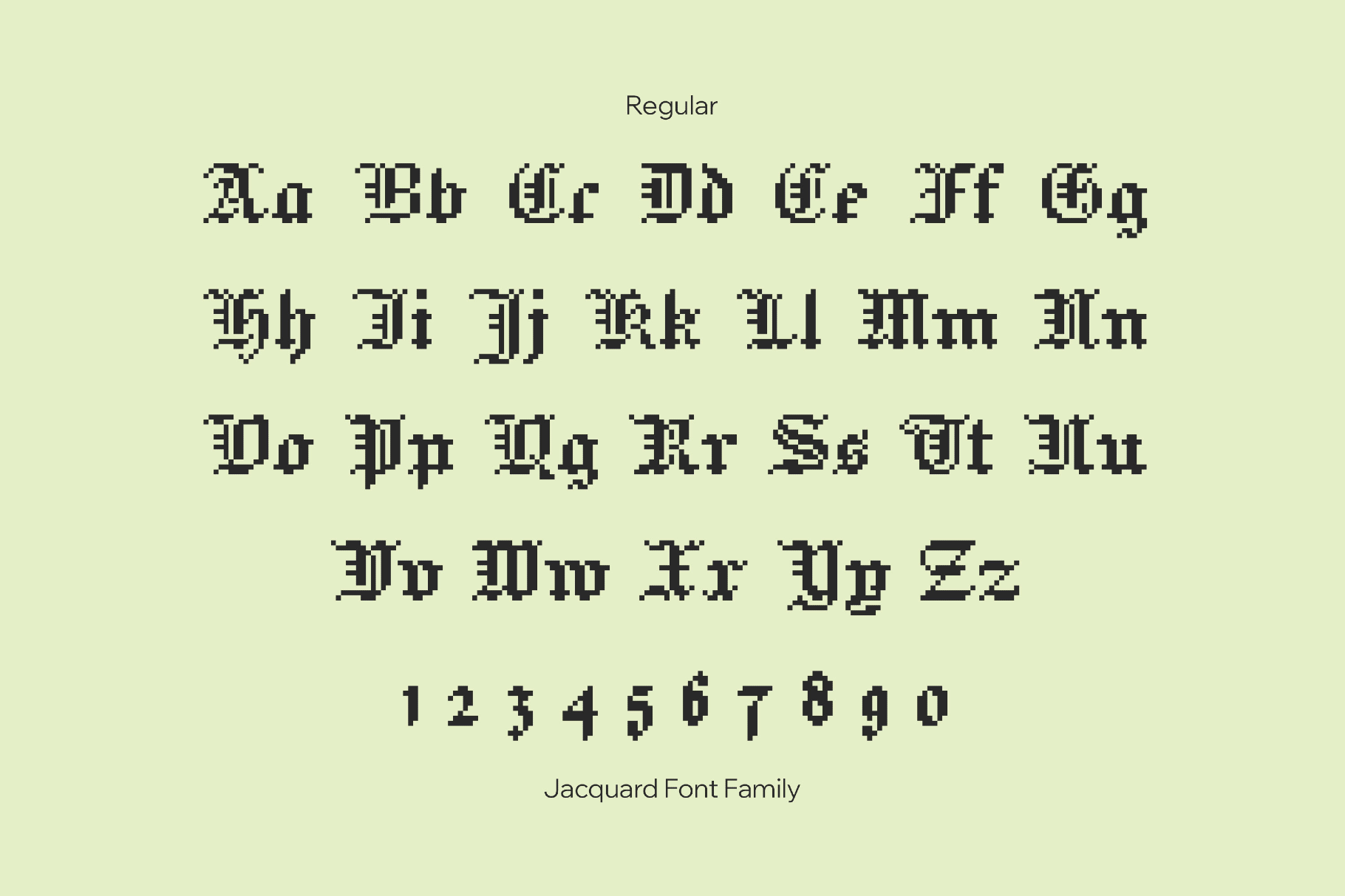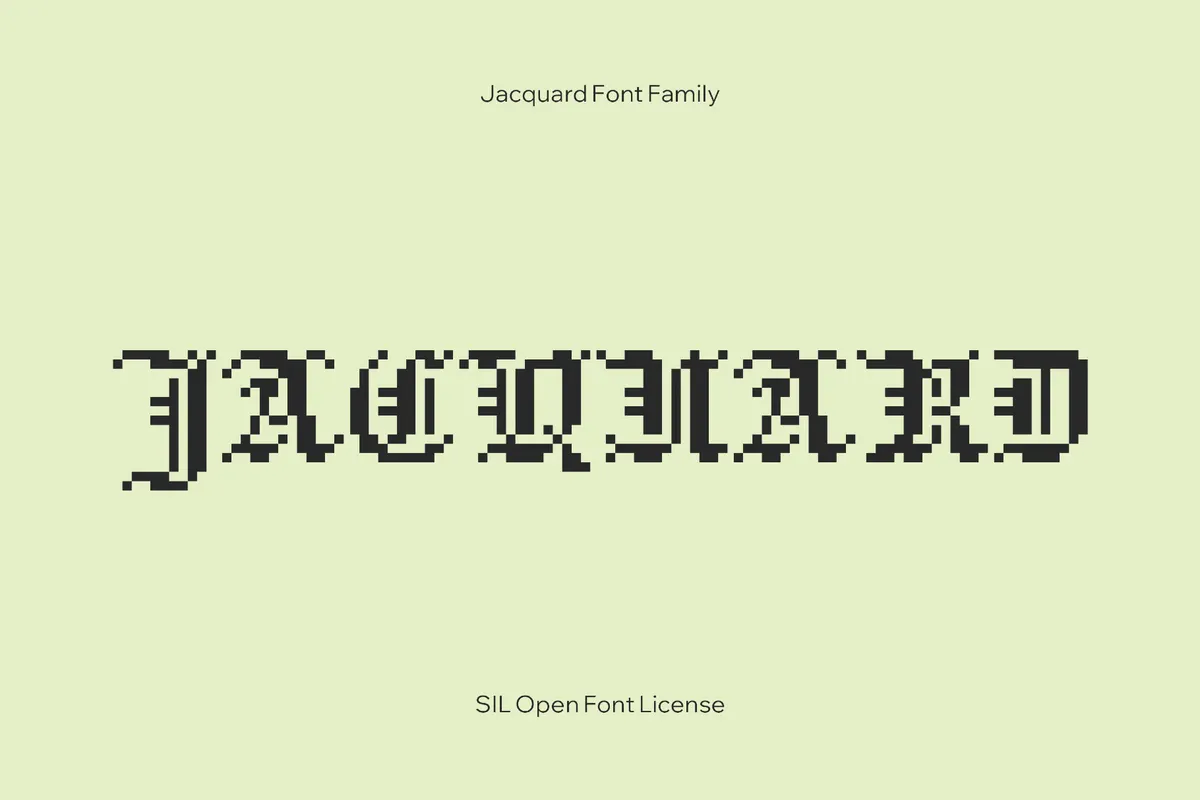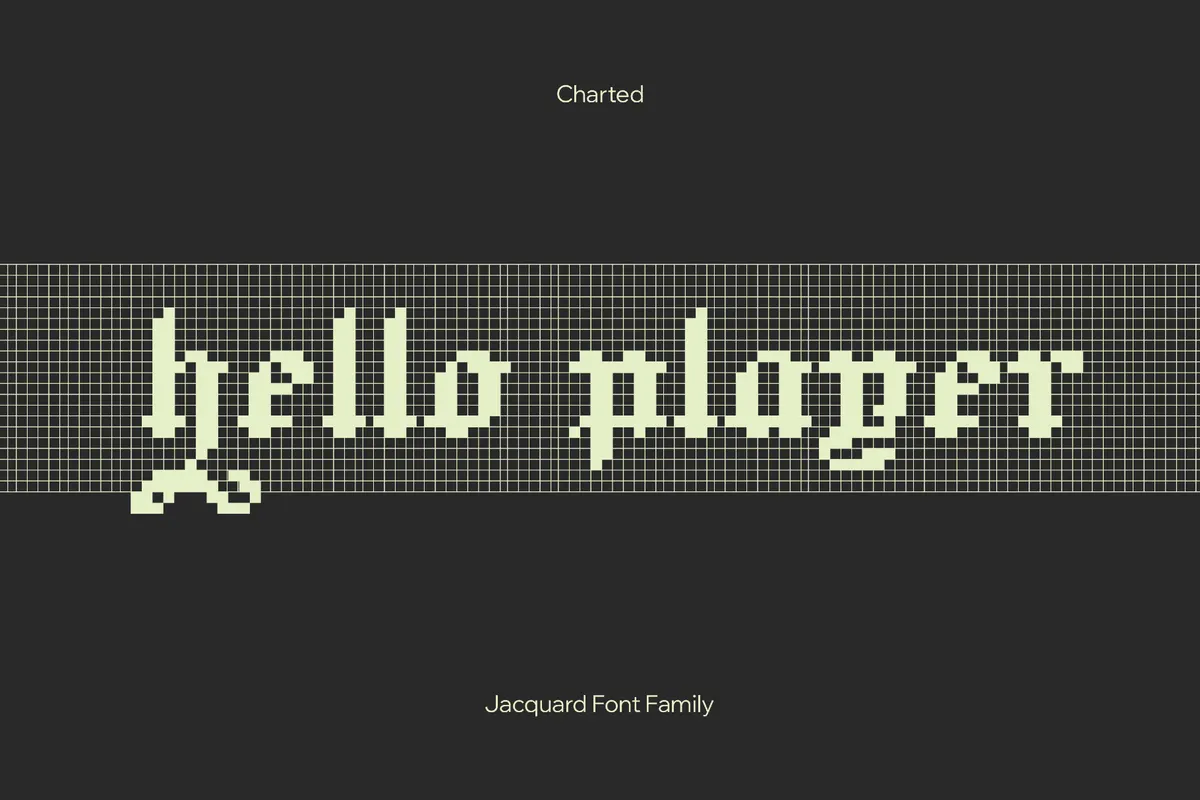
Jacquard Font Family
Jacquard reimagines a Victorian needlepoint alphabet as a bitmap textile. Traces of blackletter come through as broken arches, needle-sharp spurs, and diamond terminals. Use it for knitwear charts, needlepoint and beadwork patterns, pixel-art titles, experimental editorial layouts, music artwork with a gothic-digital twist, and identity systems for labels or events that sit between craft, code, and club culture.
- Two styles: Regular and Charted.
- Uppercase and lowercase letters, numbers, punctuation, and symbols.
- Multilingual support with international characters across extended Latin-based languages.